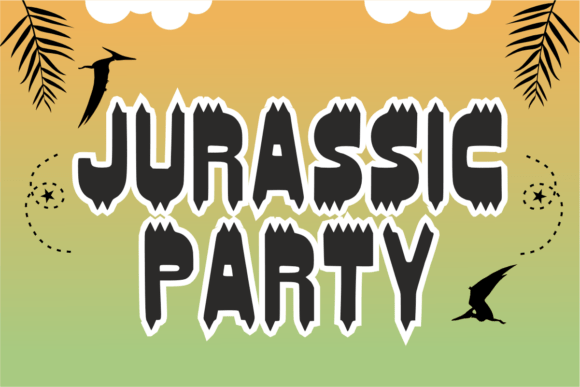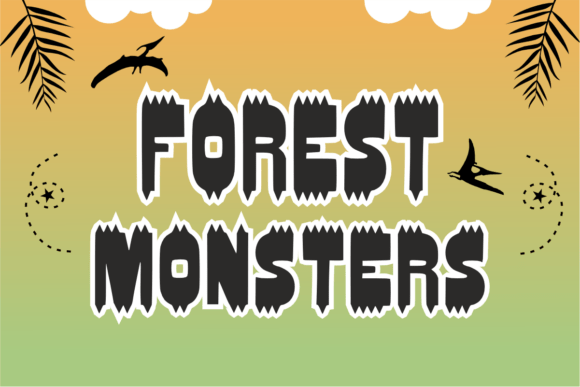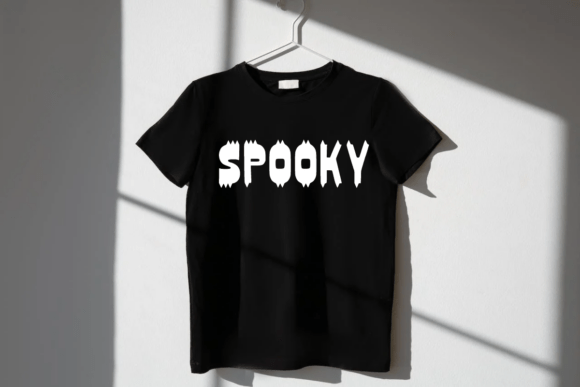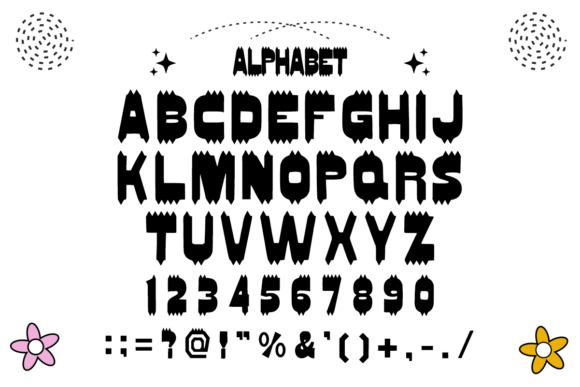
Dino Kids Font: Unleash Prehistoric Charm in Your Designs
Are you a designer, crafter, or DIY enthusiast looking for a font that can add a touch of prehistoric charm to your projects? Look no further than the Dino Kids font! This illustration font is specifically designed to bring a bold, roaring energy to your designs, making it perfect for dinosaur-themed birthday invites, educational materials, toy packaging, and fun signage.
What Makes Dino Kids Font So Special?
Dino Kids font is an all-capital letter font that boasts jagged edges and chunky characters, giving it a unique and playful look. The font is inspired by dinosaurs and prehistoric adventures, making it an excellent choice for any project that requires a fun and kid-friendly vibe. Every character in this typeface is designed to be adorable and unique, making it perfect for rejoicing the kiddie spirit!
Perfect for Childhood Creative Projects
Dino Kids font is ideal for enhancing the appeal of childhood creative projects, such as:
- Dinosaur-themed birthday invites and party decorations
- Children’s coloring books and activity sheets
- Toy packaging and branding
- Educational materials, such as posters and worksheets
- Fun signage, like chalkboard signs and banners
Ideal for Various Design Applications
The Dino Kids font is not just limited to childhood creative projects. It’s also perfect for:
- Sublimation print t-shirts, hoodies, and other apparel
- Beverage mugs, water bottles, and other drinkware
- Tote bags, pouches, and other fabric accessories
- Animation projects, such as cartoons and video productions
- Comic titles, graphic novels, and other illustrated books
Why Choose Dino Kids Font?
So, why choose the Dino Kids font for your next project? Here are just a few reasons:
- Unique and playful design: The Dino Kids font boasts a one-of-a-kind design that’s sure to grab attention.
- Kid-friendly and cool: The font’s playful vibe makes it perfect for projects aimed at kids.
- Versatile: The font can be used in a wide range of design applications, from digital to print.
- Easy to read: Despite its bold and chunky design, the font is easy to read, even at smaller sizes.
Tips for Using Dino Kids Font
Here are some tips for getting the most out of the Dino Kids font:
- Use it with bold colors: The font’s playful design pairs perfectly with bright, bold colors.
- Experiment with different sizes: The font looks great at both large and small sizes, so don’t be afraid to experiment.
- Combine it with other fonts: The Dino Kids font pairs well with other fun, playful fonts.
- Use it consistently: To create a cohesive look, use the font consistently throughout your design.
In conclusion, the Dino Kids font is a must-have for any designer, crafter, or DIY enthusiast looking to add a touch of prehistoric charm to their projects. With its bold, roaring design and kid-friendly vibe, it’s perfect for a wide range of applications, from childhood creative projects to animation and comic titles. So why wait? Download the Dino Kids font today and start unleashing your creativity!